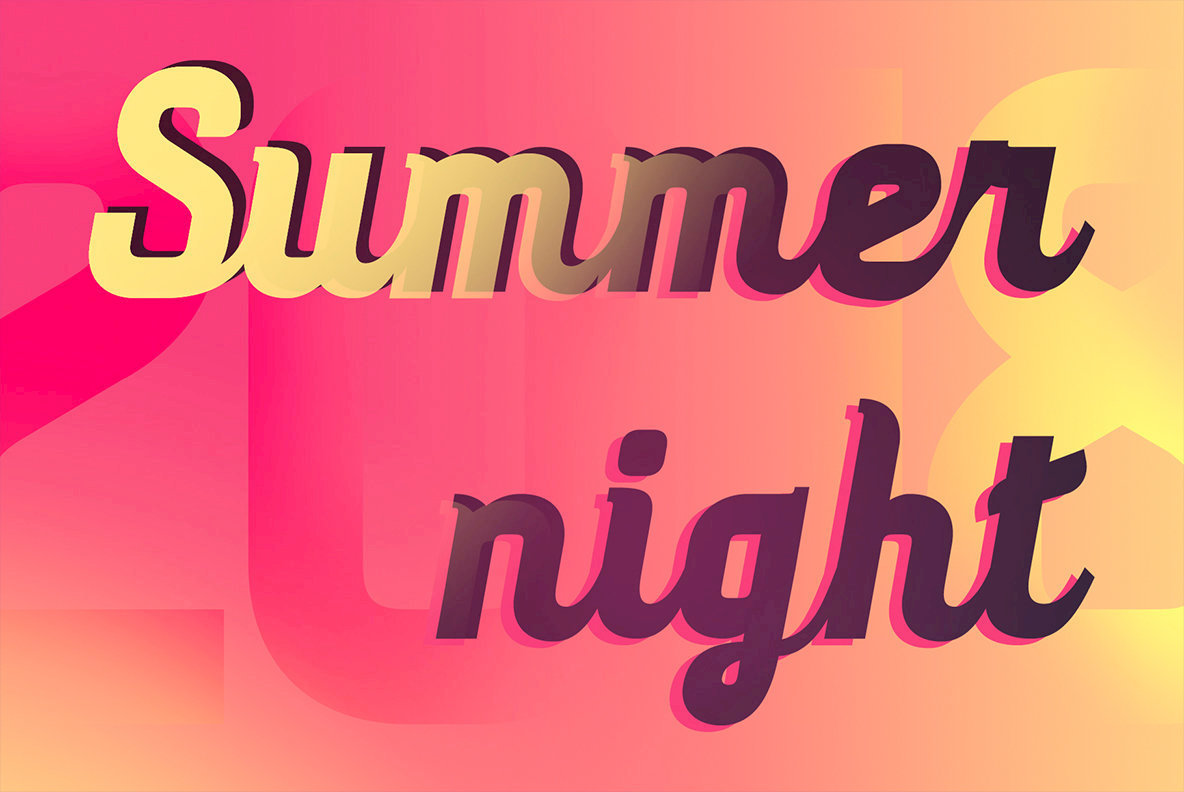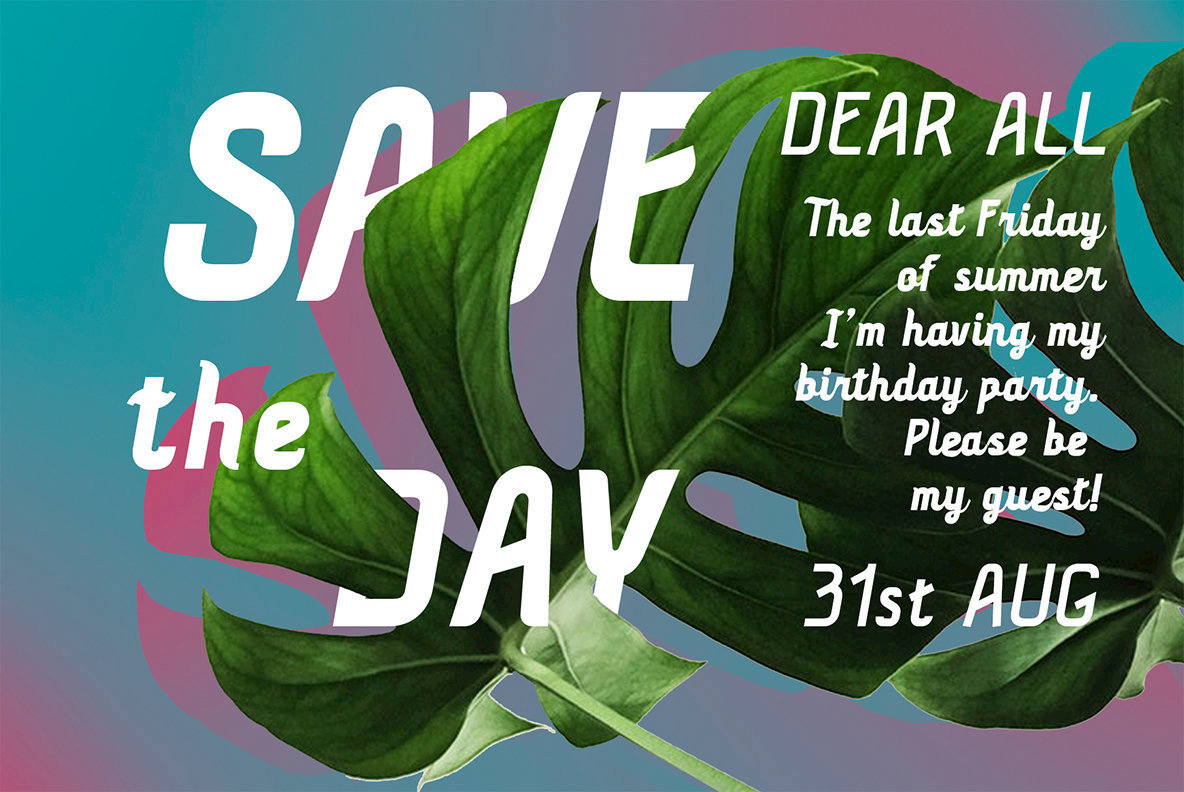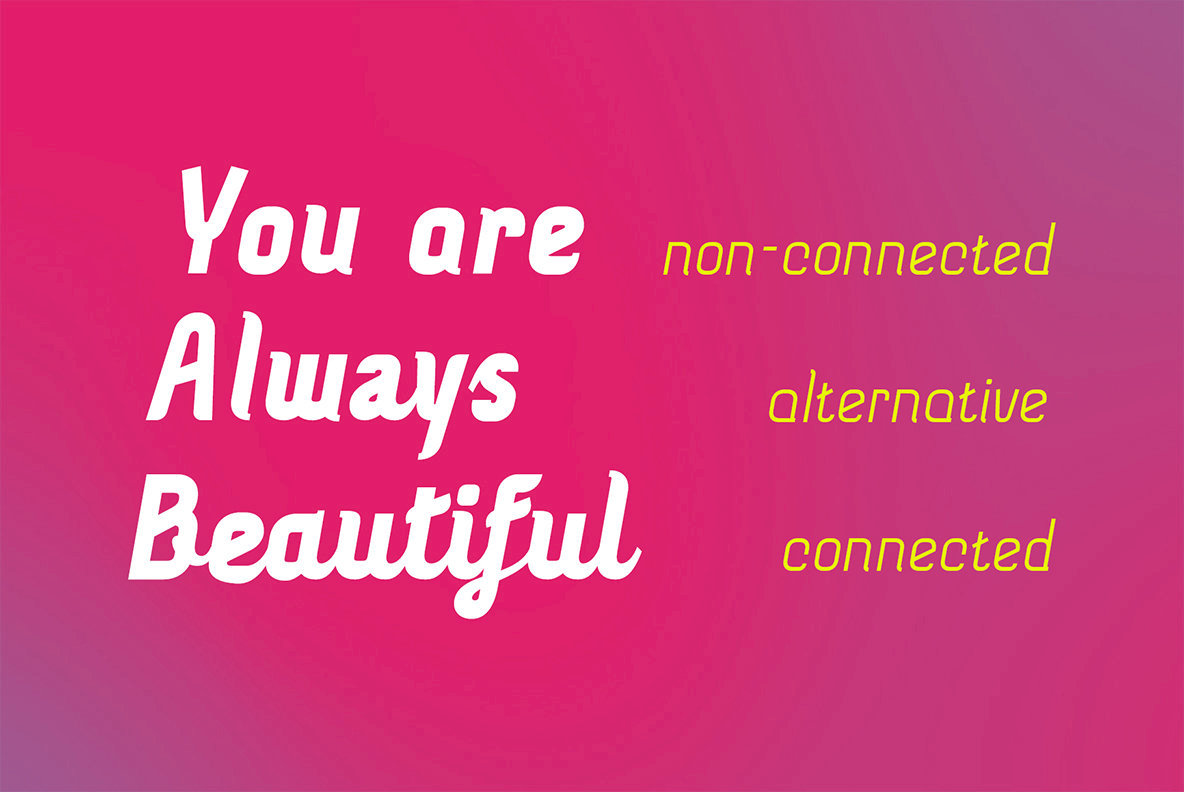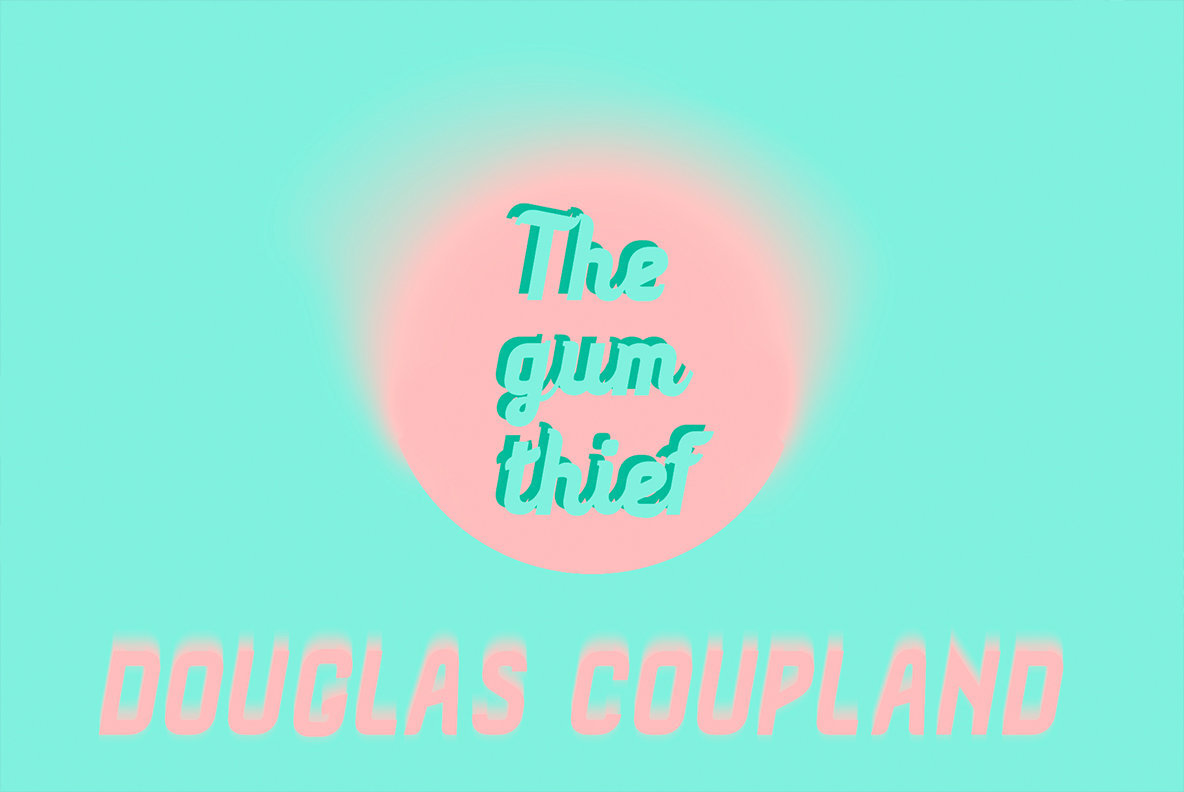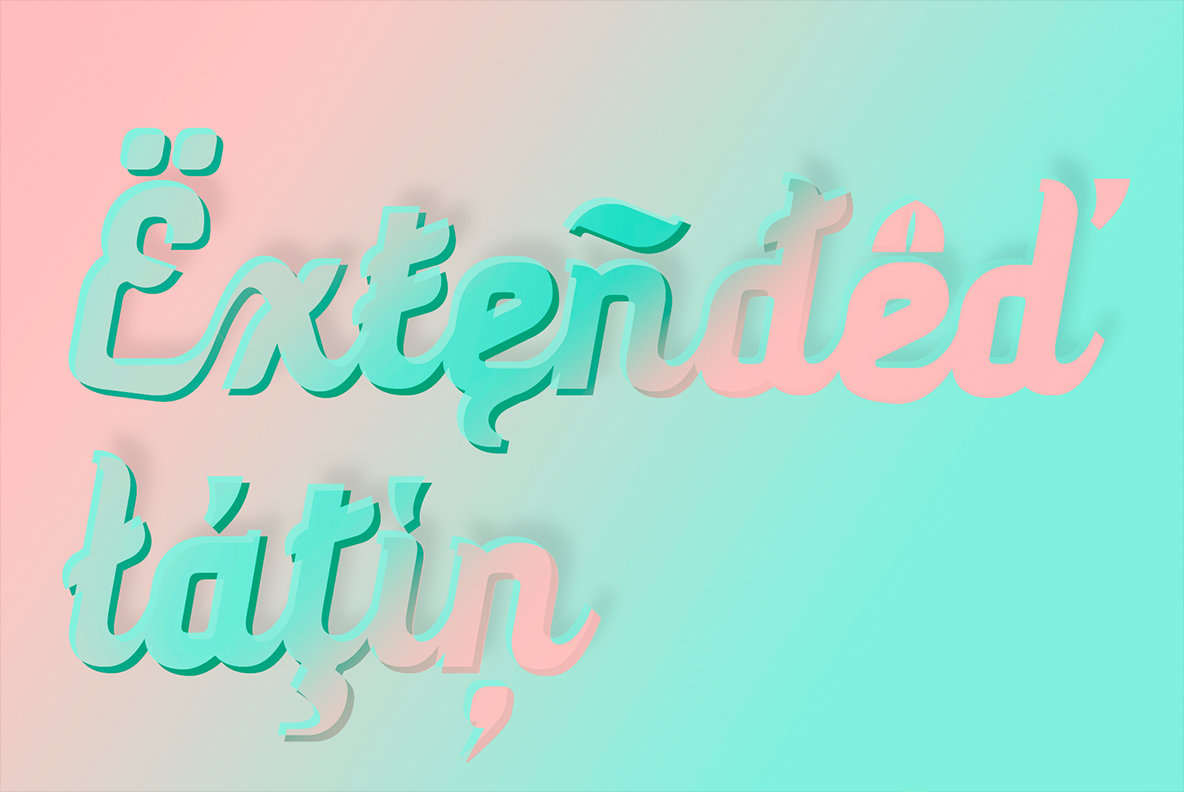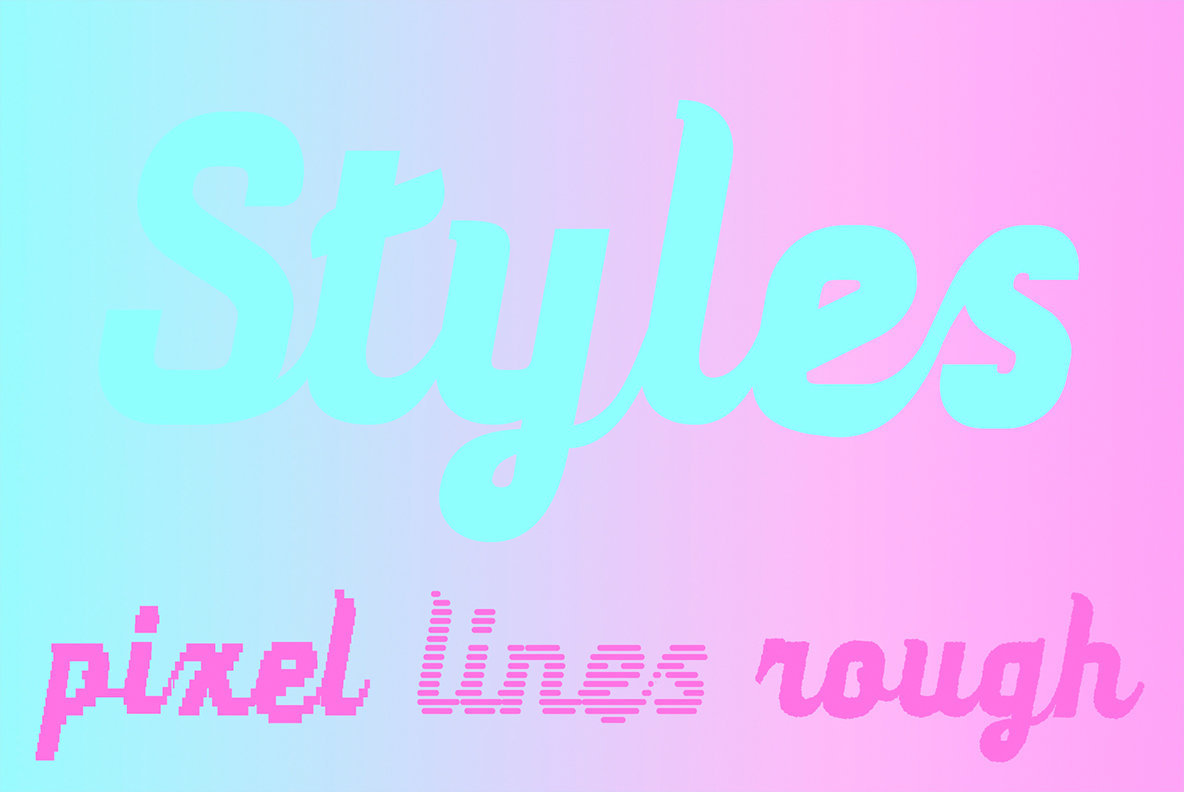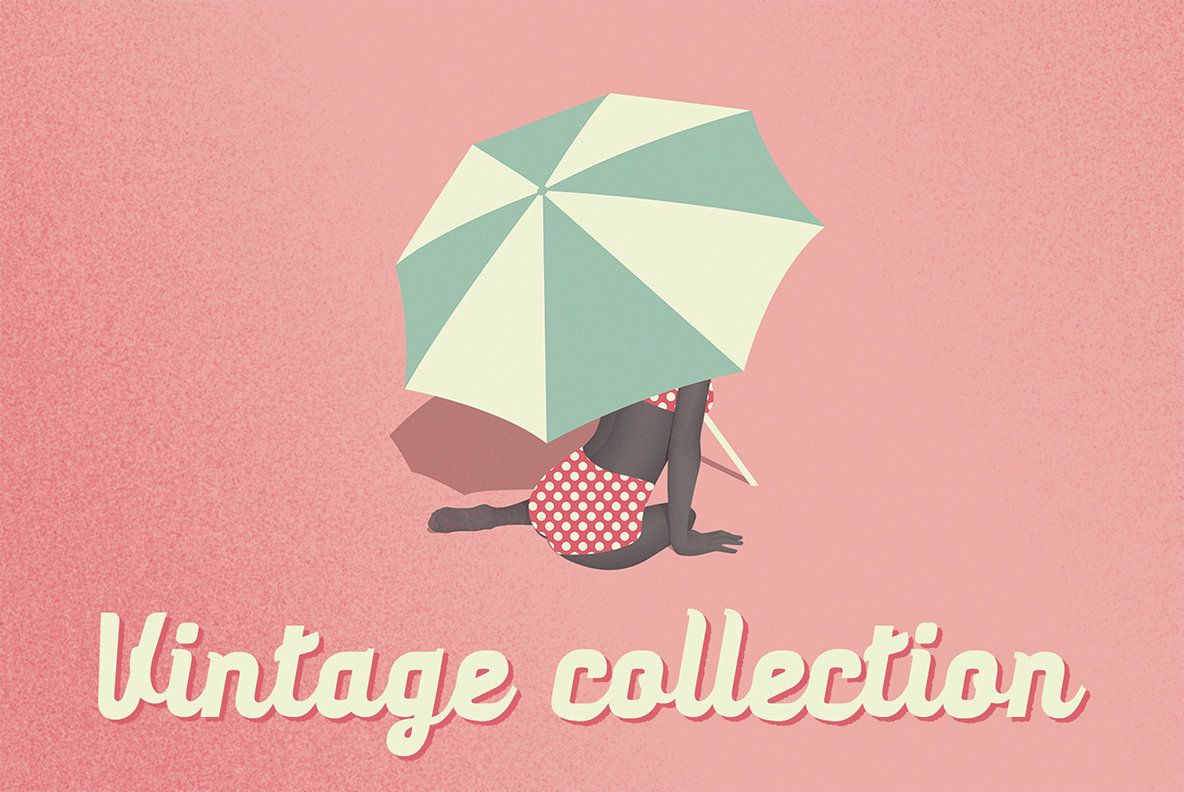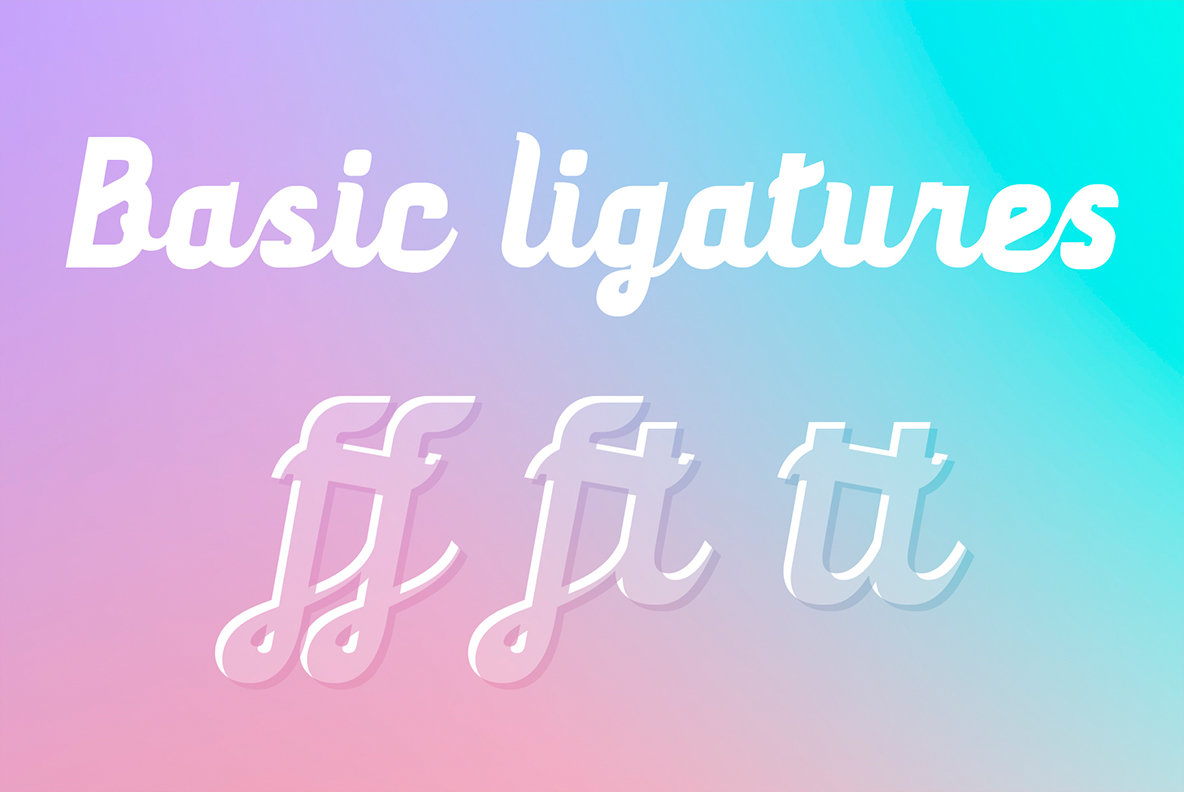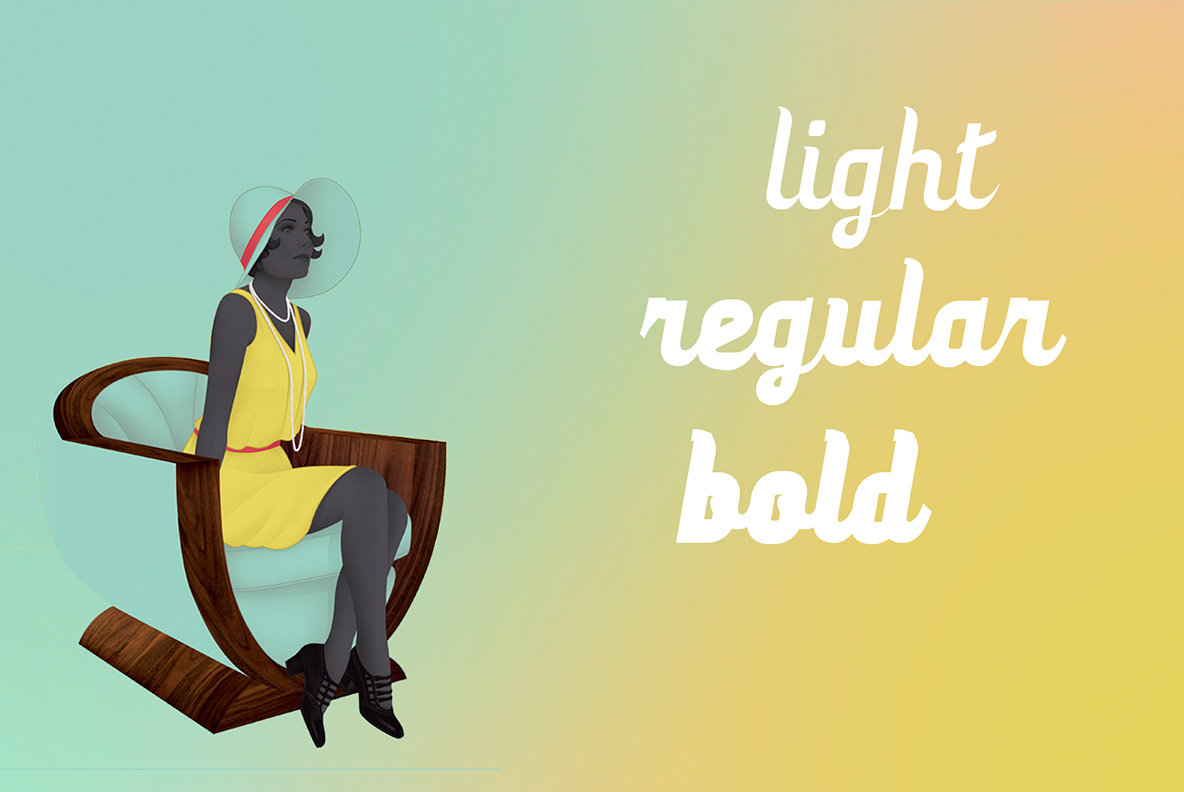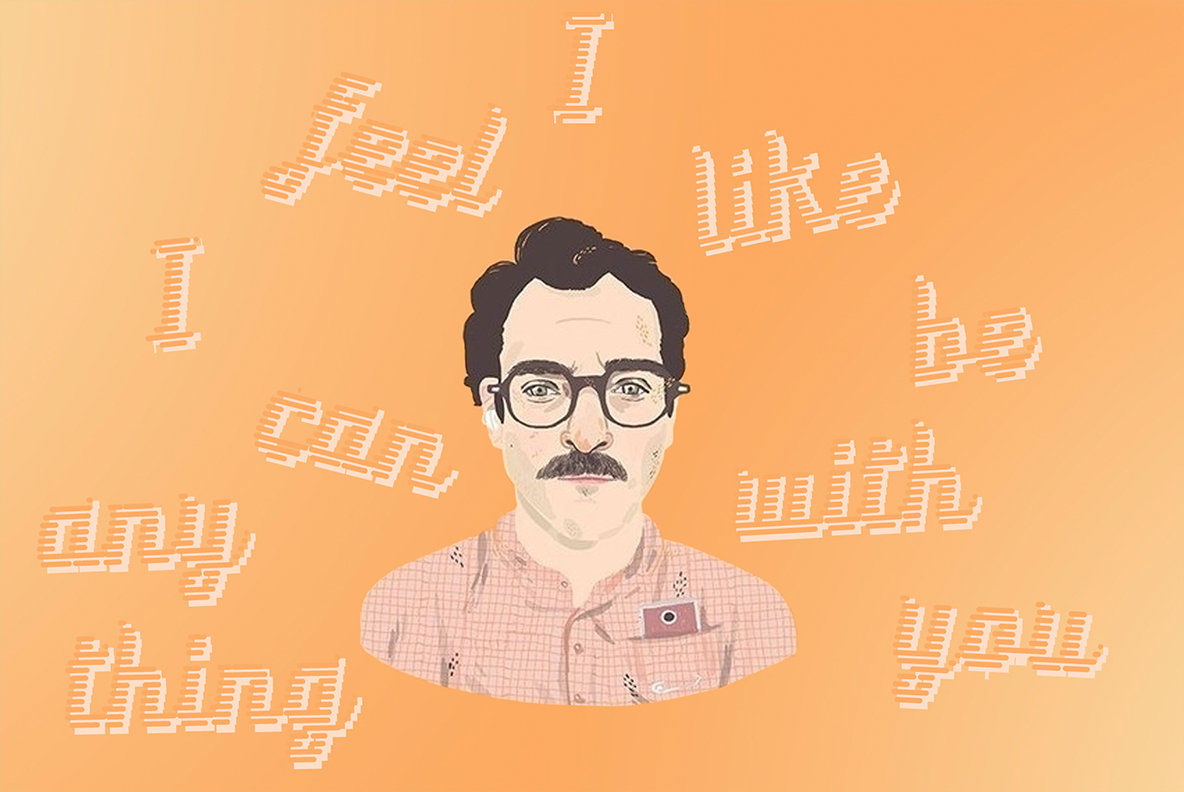
Ma Tilda Font
Ma Tilda, a connected script by Etewut Foundry, is an adaptation of the original Tilda typeface. It offers alternates for each basic Latin character, allowing you the flexibility to choose between connected and non-connected styles. This typeface is designed to bring a light-hearted and whimsical touch to your projects, especially suited for signing cards and crafting engaging titles. Ma Tilda excels in providing extensive support for all European languages, featuring special characters like the French Œ, Æ, Î, È, the German Ü, Ö, Ä, ß, the Spanish Ñ, Ç, Ó, as well as the Scandinavian Ø, Å, Ð, among others. Features:Ma Tilda: A Playful Script Typeface
Comprehensive Language Support